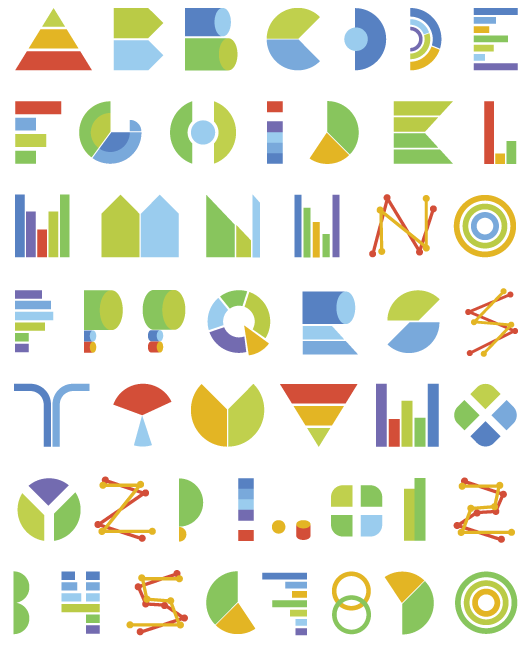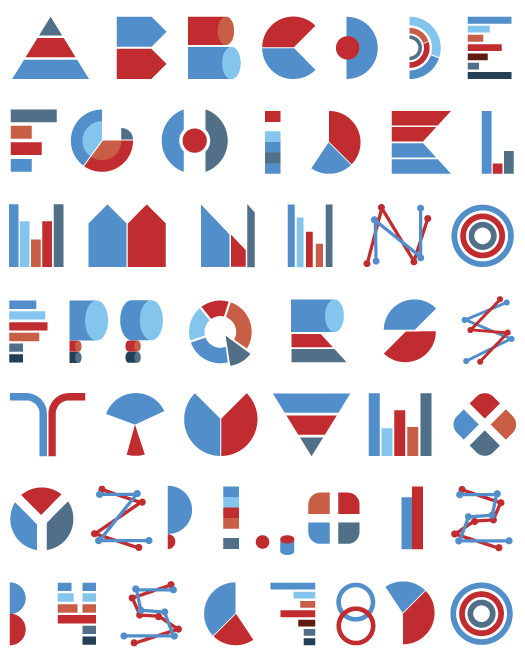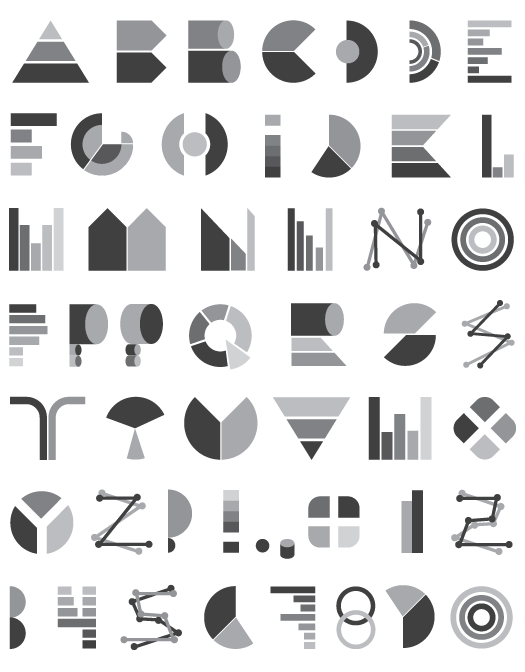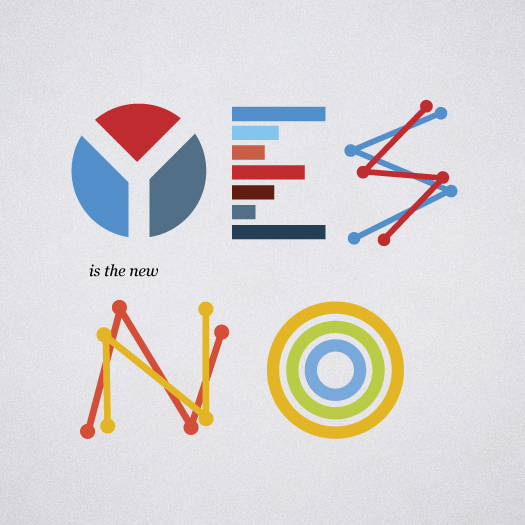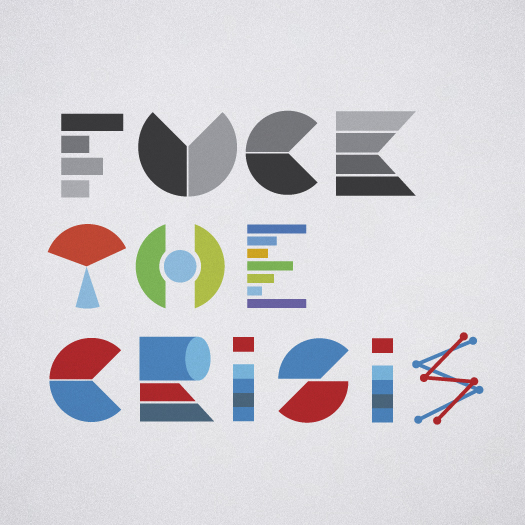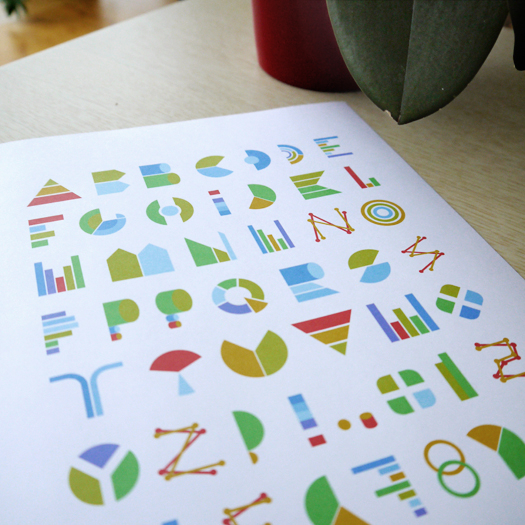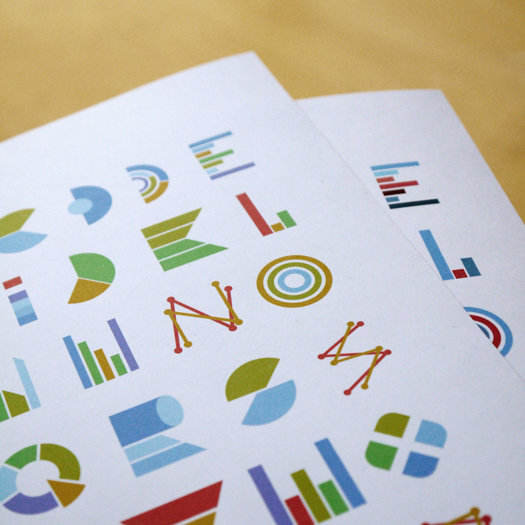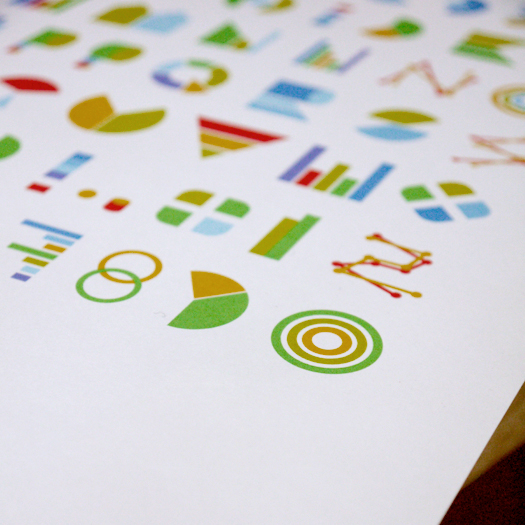
Infographics
Analyse me!
Infographics is definitely one of the most distinct fonts in our collection. It is interesting to view and read, and it's available in three different colour-combinations: black-and-grays, green-and-yellows, blue-and-reds. One of the inspirations to make this font, was the GoogleAnalytics trend and usage in new marketing and advertising.